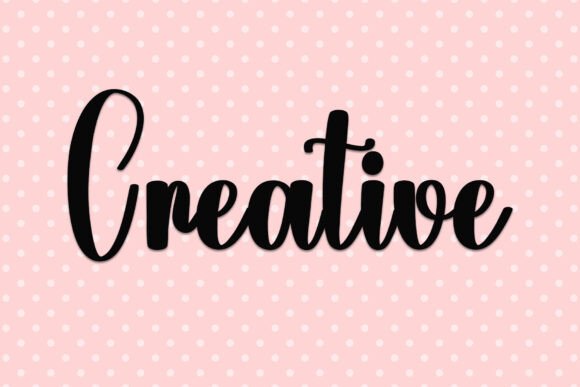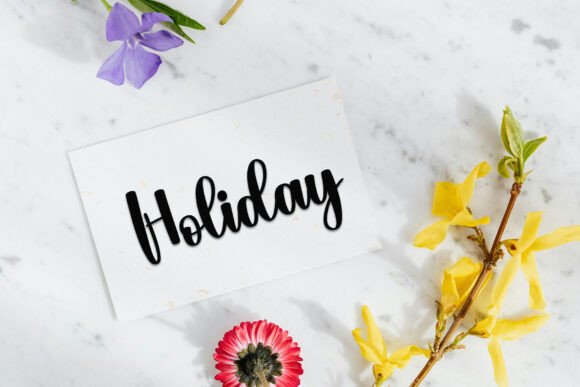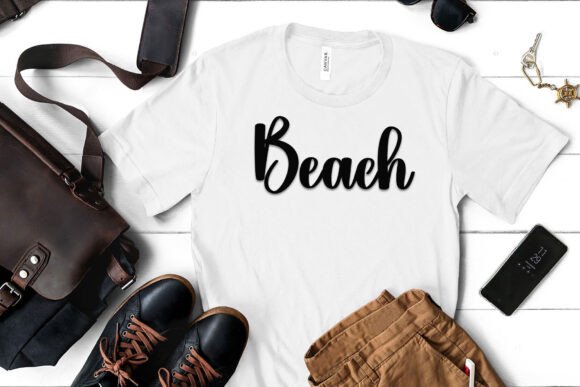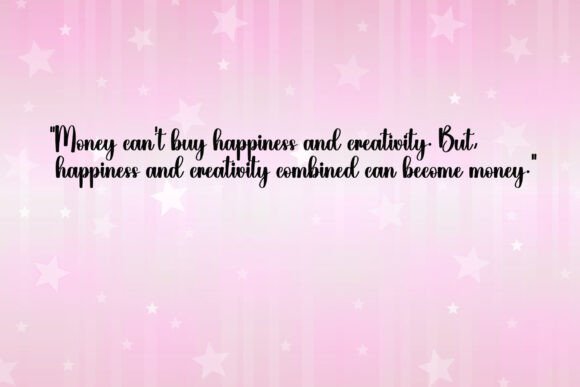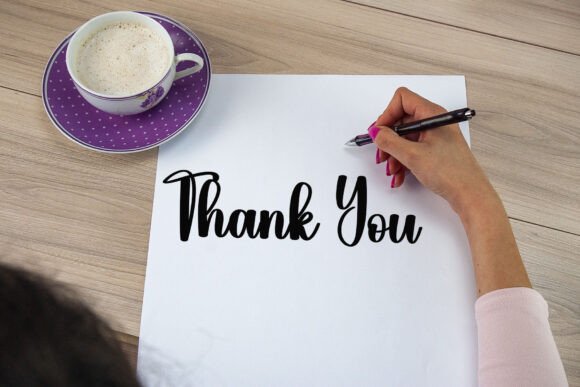
Introduction to Holding Hands Font
Have you ever been working on a design project, pouring your heart and soul into it, only to feel like something is missing? That’s when the perfect font can make all the difference. As a designer, you know the importance of finding the right typography to elevate your creative project and give it that extra oomph. And that’s exactly where the Holding Hands Font comes in – a stunning, handwritten font that exudes elegance and sophistication.
This beautiful font is not just a design resource, but a statement piece that can instantly elevate your design projects. With its high-quality, transparent background, it’s perfect for adding a touch of class to any layout. Whether you’re working on a business card, a wedding invitation, or a social media post, the Holding Hands Font is sure to make your design stand out.
Key Features of Holding Hands Font
- Unique design with a playful and romantic feel, perfect for creative projects.
- High-quality font with transparent background, ideal for use in graphic design and digital art.
- Perfect for use in wedding invitations, greeting cards, and other romantic-themed creative projects.
Honest Review: Holding Hands Font
I recently stumbled upon the Holding Hands Font and was excited to dive in and see what it had to offer. As a designer, I’m always on the lookout for high-quality design resources to add to my arsenal, and I was pleased to find that this font delivers.
What works well: ✨ The font’s playful and whimsical feel makes it perfect for creative projects that need a touch of personality. The transparent background feature is also a great bonus, allowing for seamless integration with any design. The free download option is a definite plus, making it accessible to designers of all levels.
Some limitations: ⚠️ While the font is certainly high-quality, it may not be suitable for all types of projects. The design is quite bold and eye-catching, so it’s best used for projects where that kind of attention-grabbing effect is desired. Additionally, the font may not be as versatile as some other options, so it’s worth considering the specific needs of your project before making a decision.
Overall, I’m impressed with the Holding Hands Font and think it’s a great addition to any designer’s toolkit. With its unique design and high-quality construction, it’s sure to add a creative spark to any project.
- Perfect for playful and whimsical designs
- Transparent background feature for seamless integration
- May not be suitable for all types of projects
- Not as versatile as some other font options
Getting the Most Out of Holding Hands Font
Here are a few tips for getting the most out of the Holding Hands Font:
1. Experiment with different font sizes and colors to create a unique visual effect.
2. Use the font in conjunction with other design elements, such as images and shapes, to create a cohesive design.
3. Take advantage of the font’s transparent background to create a layered design effect.
The Holding Hands Font is ideal for a variety of design projects, including: